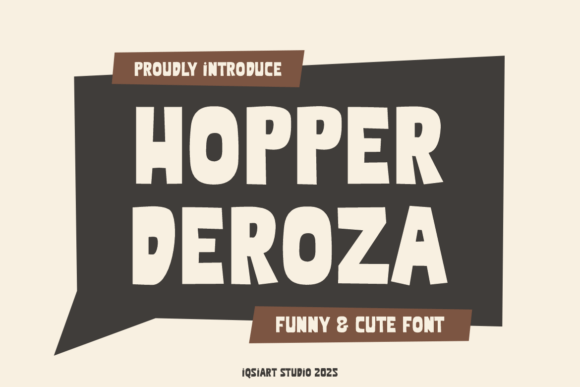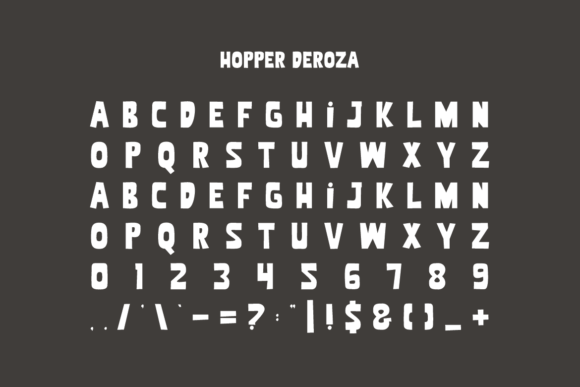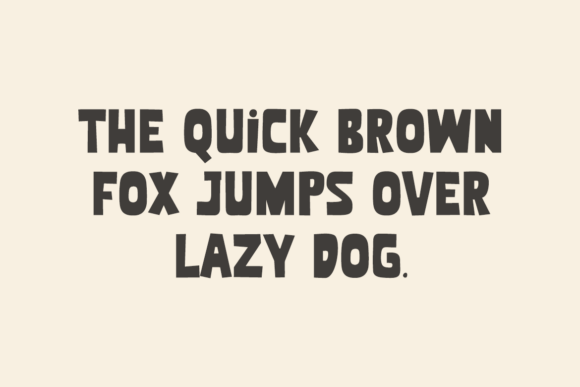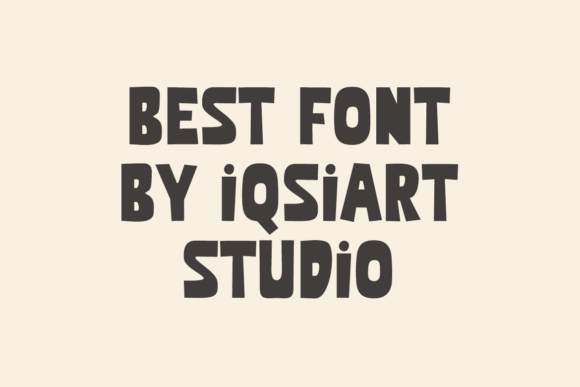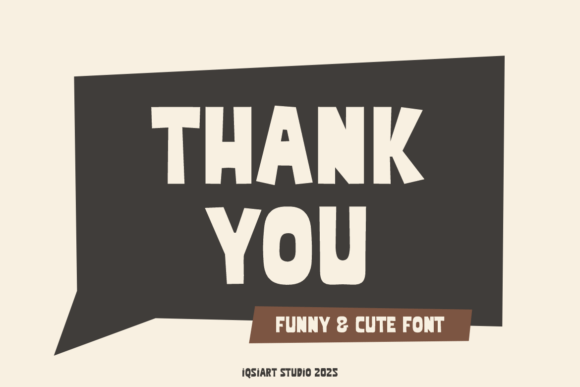
The Perfect Font for Your Next Masterpiece
Have you ever been working on a project, pouring your heart and soul into it, and then suddenly, you stumble upon the perfect font to bring it all together? That’s exactly what happened to me when I discovered the Hopper Deroza Font.
This bold and assertive sans serif font is the ultimate game-changer for any designer. Whether you’re working on a logo, a poster, or a magazine cover, the Hopper Deroza Font has the potential to elevate your creation to the next level. Its versatility and unique character make it an incredible asset to your font library.
As a designer, you know how crucial it is to find the right font to convey your message. That’s why the Hopper Deroza Font is a valuable addition to any designer’s toolkit. With its bold and assertive style, you’ll be able to make a lasting impression on your audience and leave a lasting impact.
Hopper Deroza Font Key Features
- Font Family: Hopper Deroza is a sans-serif font family.
- Font Sizes: Supports a wide range of font sizes, from 8pt to 72pt.
- Resolution: Optimized for high-resolution displays (up to 300 DPI).
- Unique Characteristics: Features a unique blend of modern and vintage design elements, with a focus on legibility and readability.
Hopper Deroza Font Review
At first glance, the Hopper Deroza font appears to be a clean and modern sans-serif font. ✨ Its sleek lines and rounded edges give it a friendly, approachable feel that’s perfect for casual or informal projects. ✨ The font’s versatility shines through in its ability to be used for a wide range of applications, from headlines to body text.
One of the standout features of the Hopper Deroza font is its excellent legibility. ✨ Even at smaller font sizes, the font remains clear and easy to read, making it an excellent choice for digital use. Additionally, the font’s x-height is well-proportioned, which adds to its overall readability.
However, there are some limitations to consider. ⚠️ The font may not be the best choice for projects that require a more formal or sophisticated look. Additionally, some users may find the font’s rounded edges to be too playful or juvenile in certain contexts. ⚠️
In terms of overall impression, I would say that the Hopper Deroza font is a solid choice for designers looking for a clean and modern sans-serif font. While it may not be the most unique or distinctive font, it’s a reliable and versatile option that’s sure to please.
- Clean and modern sans-serif design
- Excellent legibility
- High x-height for improved readability
- Works well for casual or informal projects
- May not be suitable for formal or sophisticated projects
The Hopper Deroza font is ideal for creative projects, such as:
1. Branding and logos
2. Print materials, such as business cards and brochures
3. Digital designs, such as social media graphics and presentations